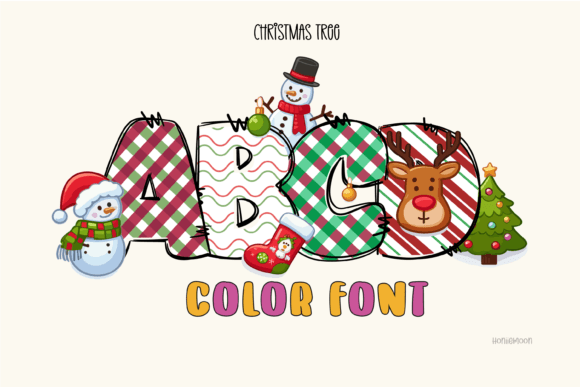
Introducing the Christmas Tree Font, a colorful font family designed by Honiiemoon, specifically crafted to elevate your festive designs! With its captivating and vibrant alphabet fonts, this collection is the perfect choice for those looking for the best font style for clothing.
Let your creativity shine with the Christmas Tree Color Fonts! Our font collection is specifically designed to add a touch of magic and excitement to your holiday-themed projects. Whether you're creating stunning Christmas cards, personalized gifts, or festive apparel, this font will bring your designs to life.